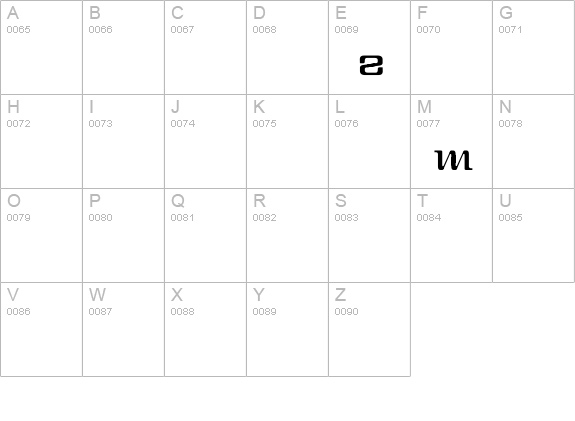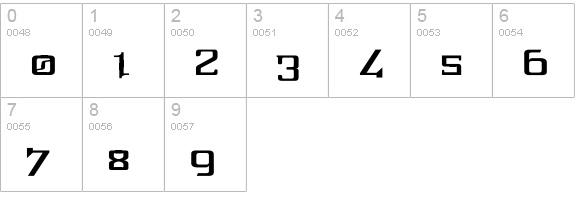
One-Eighty Regular Font Details
One-Eighty Regular is the standard, neutral variant in the One typeface family \xE2\x80\x94 well suited to general body text, paragraphs, and standard typographic work.